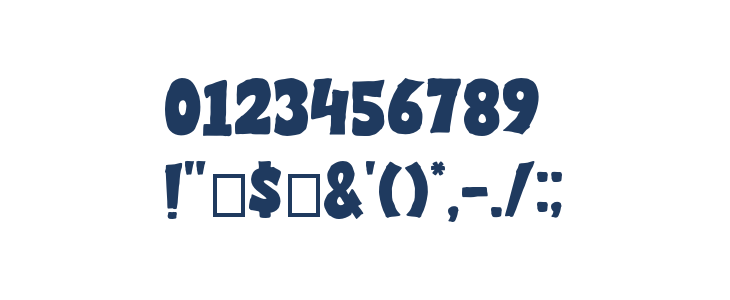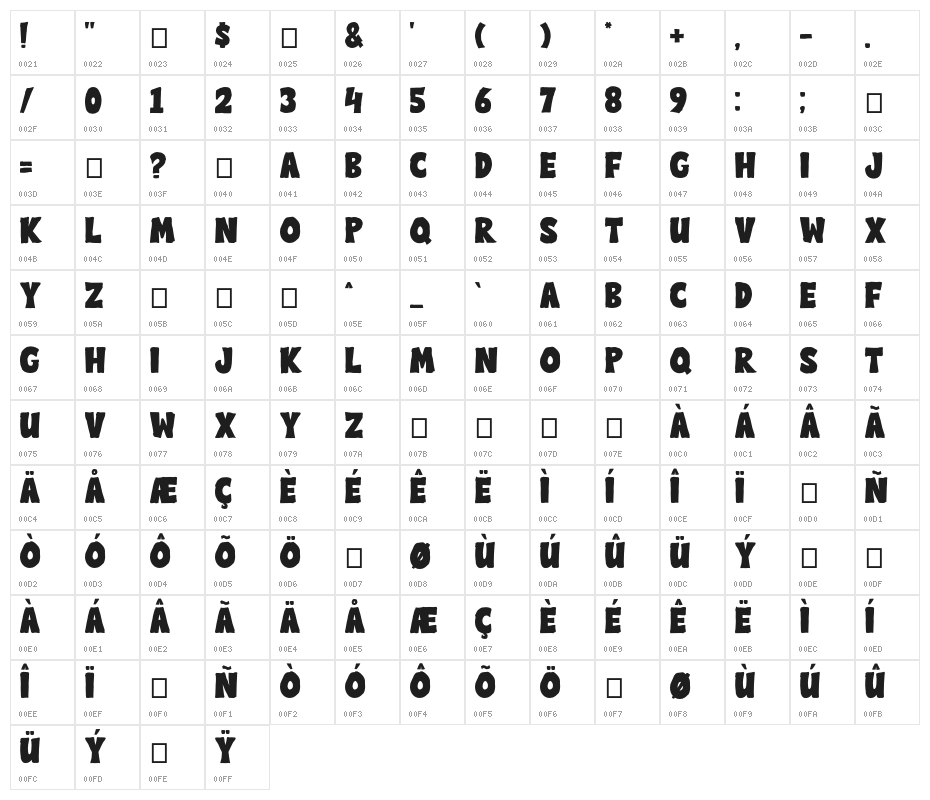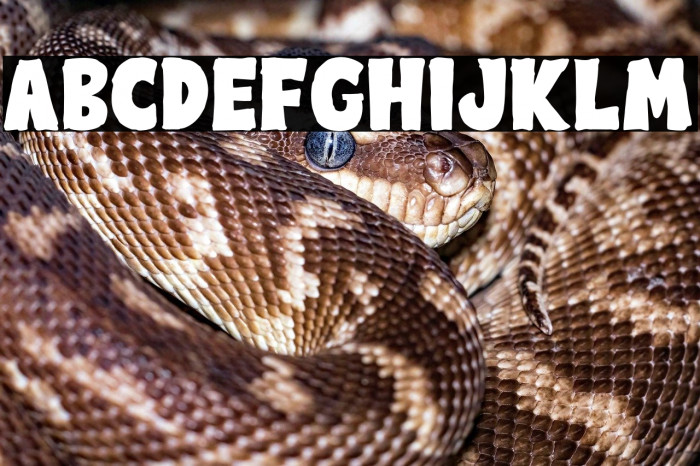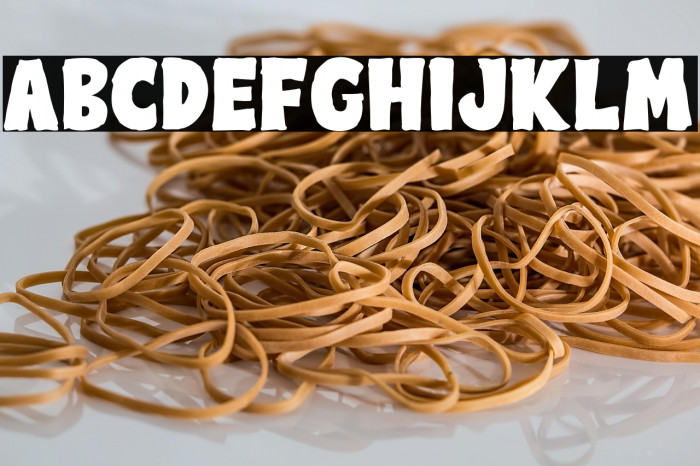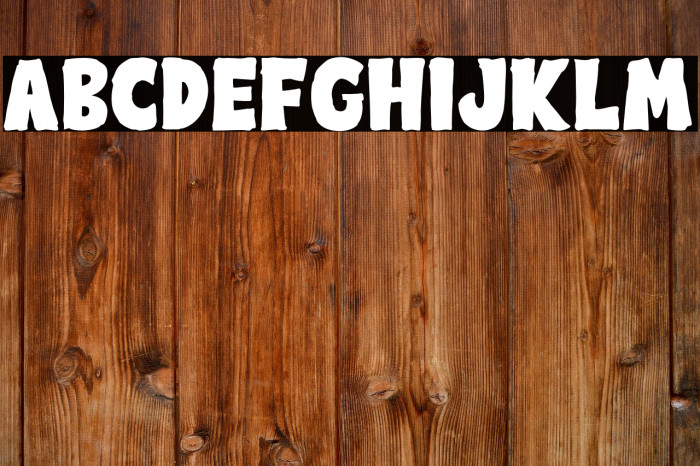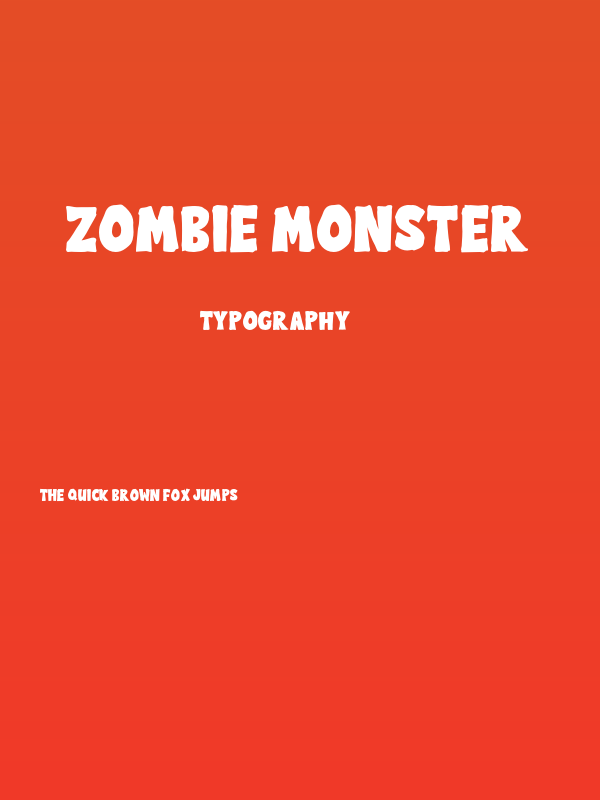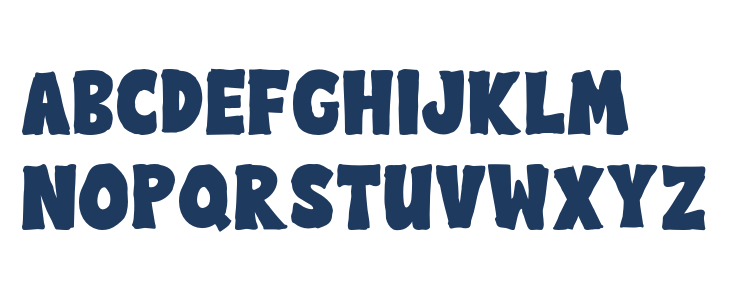
Zombie Monster Font
Zombie Monster Description
This font features a bold, playful design with a slightly distressed appearance, reminiscent of horror or Halloween themes. The characters have an uneven, jagged edge that gives them a hand-drawn, spooky feel. The uppercase and lowercase letters maintain a consistent style, with thick strokes and a slightly irregular baseline, enhancing the eerie aesthetic. The numbers and special characters follow the same design principles, making them suitable for thematic projects. The overall look is both fun and unsettling, perfect for capturing attention in a playful yet creepy context.